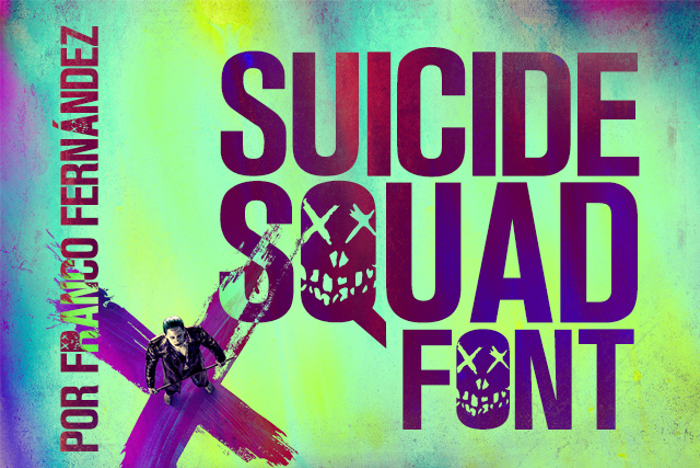
Suicide Squad Font
Tipografía de la película ESCUADRÓN SUICIDA
Movie Font of SUICIDE SQUAD
Is there a plan for the addition of the "sliced" characters?
is there a way to get the letter without the back having color like letters only ?